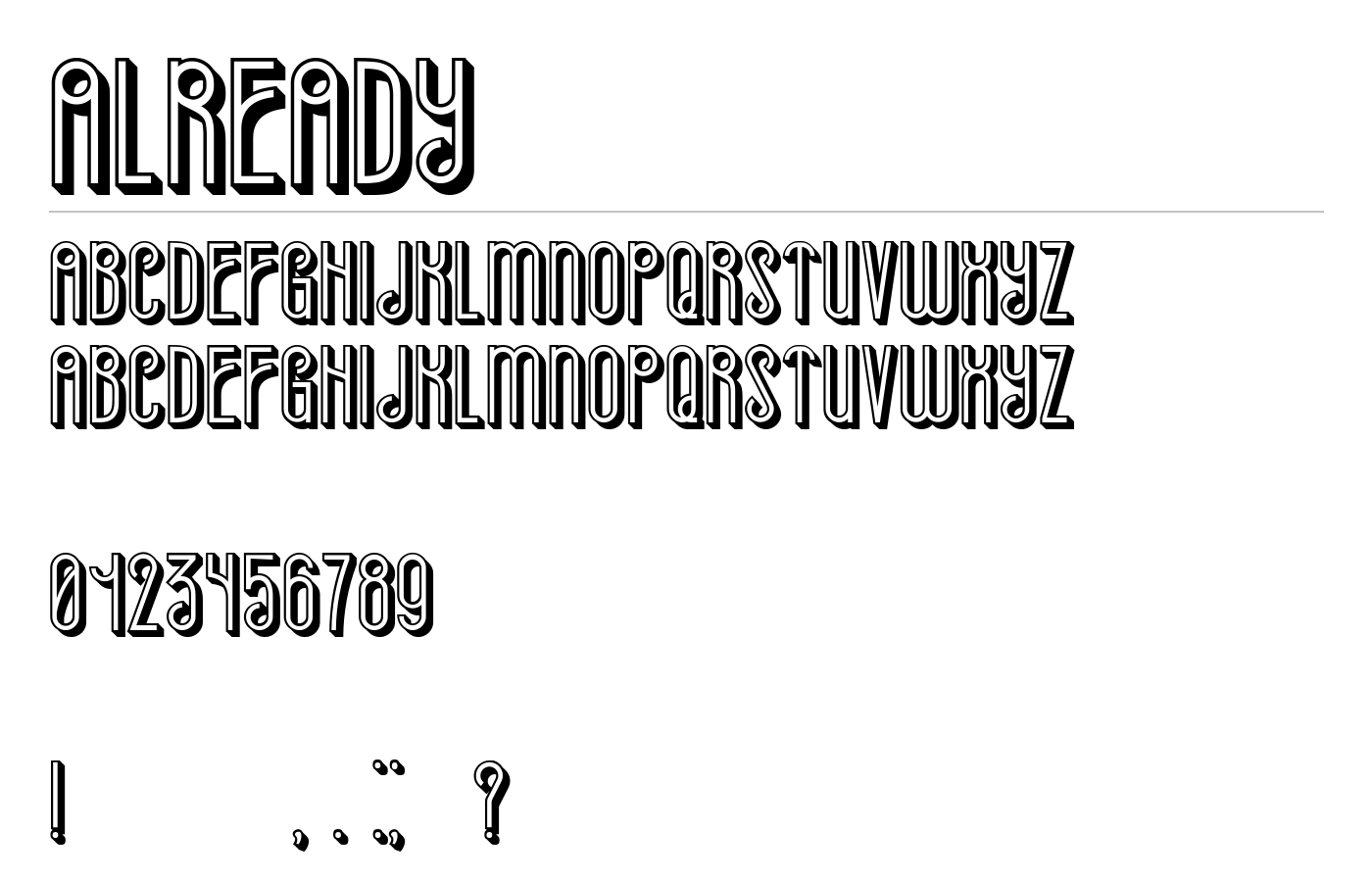
Already Font is a bold, condensed sans serif typeface with a strong retro vibe, characterized by its layered shadow effect and rounded, quirky letterforms. Its unique style evokes a playful yet confident energy, making it perfect for eye-catching headlines, logos, and packaging that seek to stand out with a vintage-modern flair. This font works especially well in creative branding and display contexts where a distinctive and memorable look is desired.
Already Font
About Already Font